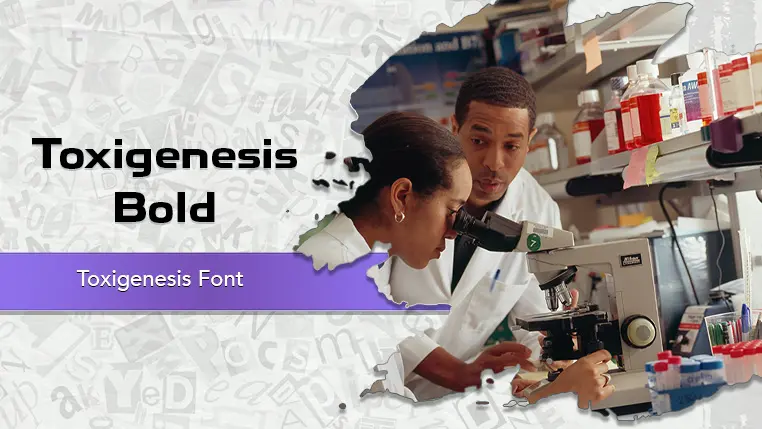
The Toxigenesis font family may be ideal for you if you enjoy working on an artistic design project. The lively, expressive look of this typeface, which was created by Typodermic Fonts, makes it ideal for Headlines and Titles. It is an excellent choice for branding for tech companies, startups, scientific research institutions, or products in the electronics, automotive, or biotech industries. It conveys precision, innovation, and a sense of power. It can be used for user interfaces and heads-up displays in video games or applications, where a futuristic or technical aesthetic is desired. Its modern, high-tech look makes it a great choice for title sequences, lower thirds, or on-screen graphics in films, documentaries, or videos with a science-fiction, industrial, or corporate theme. and other light-hearted visual projects.
Bold are the one primary font styles of the Toxigenesis font family. You may build dynamic, visually appealing text layouts with the distinct flair that each style offers. With crisp, readable lines and a relaxed tone.